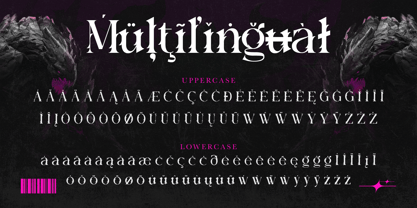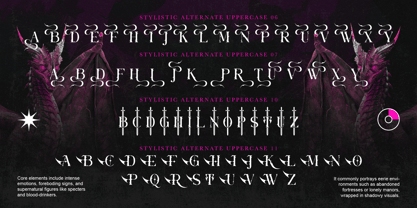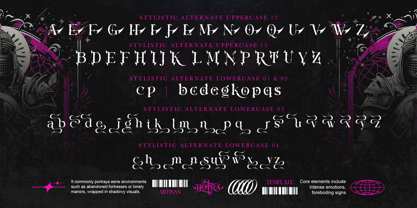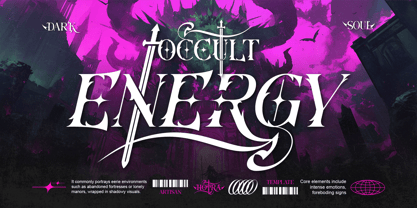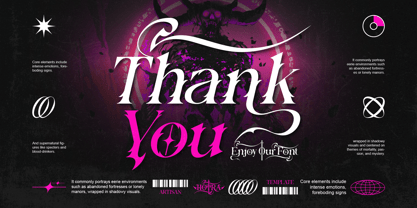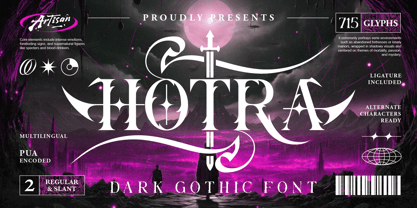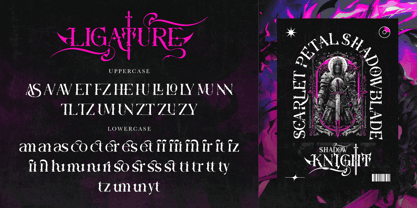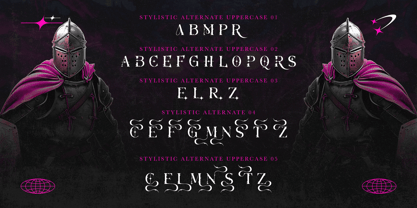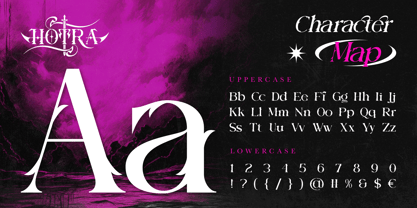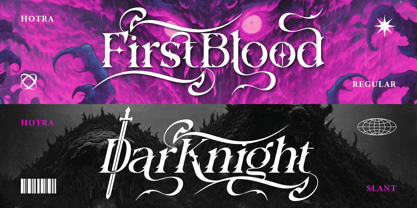
Hotra
La famille de polices Hotra a été conçue par Meidy Meichico et publiée par Artisan Themes. Hotra contient 2 styles et options de package familial. En savoir plus sur cette famille
Hotra is a dark gothic display font inspired by occult symbolism, medieval darkness, and mystical fantasy realms. It features sharp serifs, dramatic curves, and blade-like details that create a powerful, eerie, and mysterious visual presence. This font comes with hundreds of glyphs, stylistic alternates, ligatures, and multilingual support, giving you full freedom to explore different letterforms and styles. From clean regular shapes to expressive alternates, Hotra is perfect for bold typography that needs strong character and visual impact. Hotra works beautifully for dark fantasy logos, album covers, game titles, movie posters, book covers, apparel designs, branding, and mystical or gothic themed projects. Whether you want something aggressive, elegant, or mysterious, this font adapts effortlessly. Features: A - Z set (Uppercase & Lowercase), Number, Punctuation, Alternates, Ligatures, Multilingual